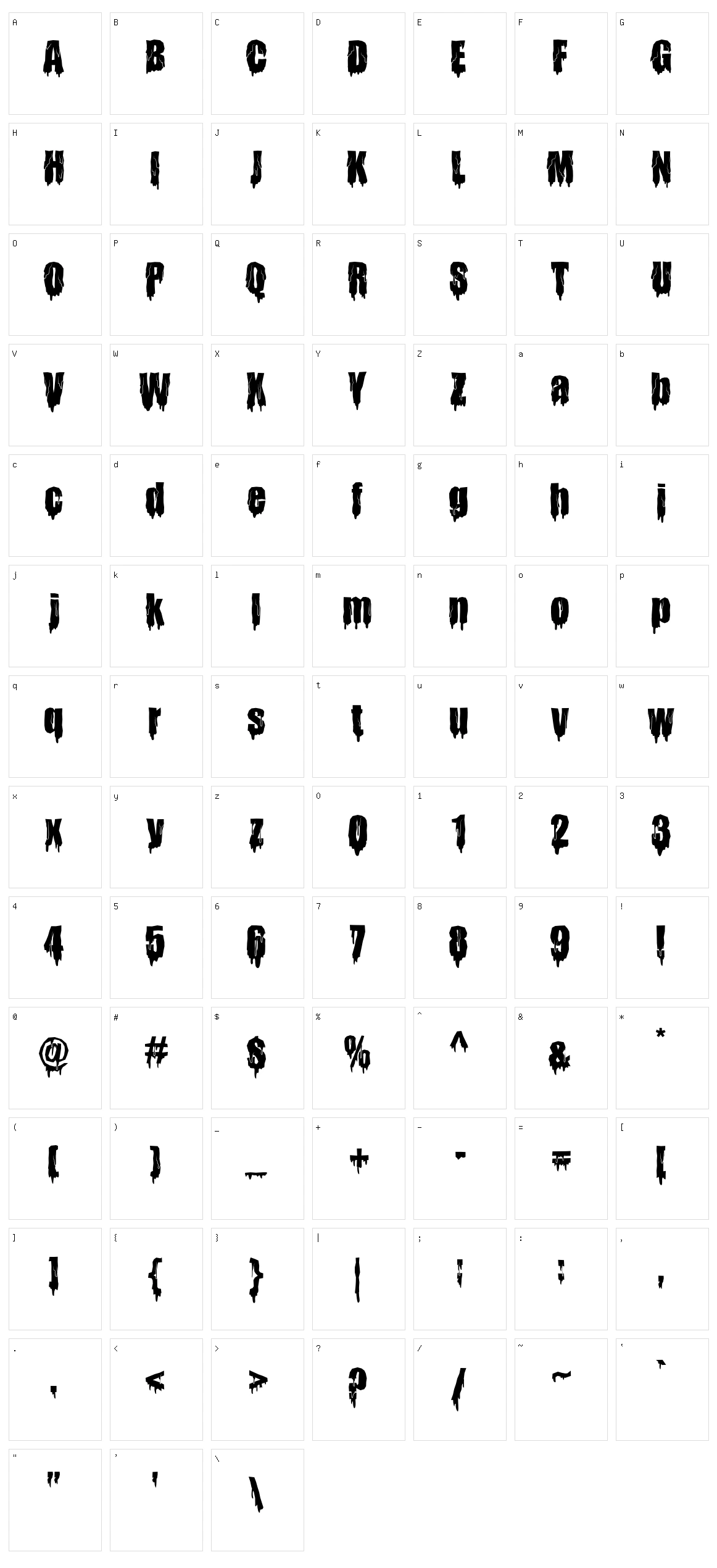
The free font Creepy Blood is carefully designed by Display Studio, showcasing a thoughtful balance of creativity and usability and falls under the Horror font style. When you download the ZIP file, it contains only 181.71 KB of font files, making it lightweight and quick to download. Please review the license details below to understand permitted usage and distribution rights. If license information is not available, we recommend using this font for personal projects only or contacting the author directly for commercial usage permissions.